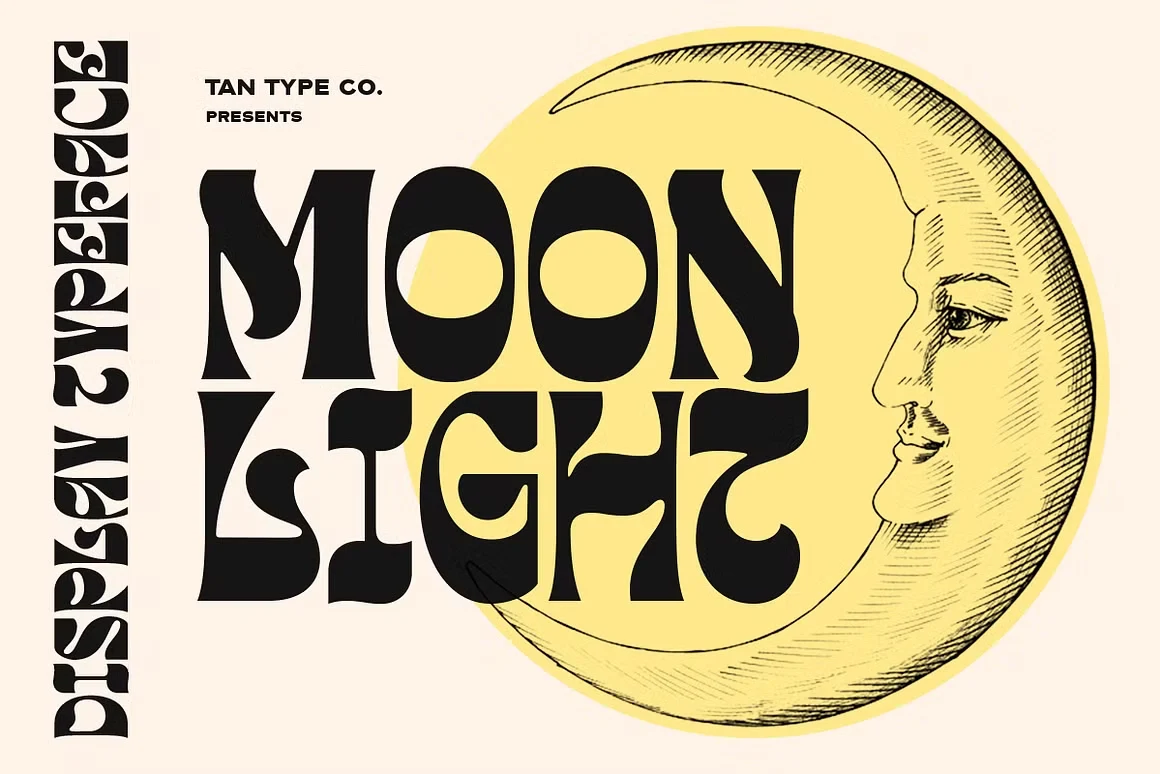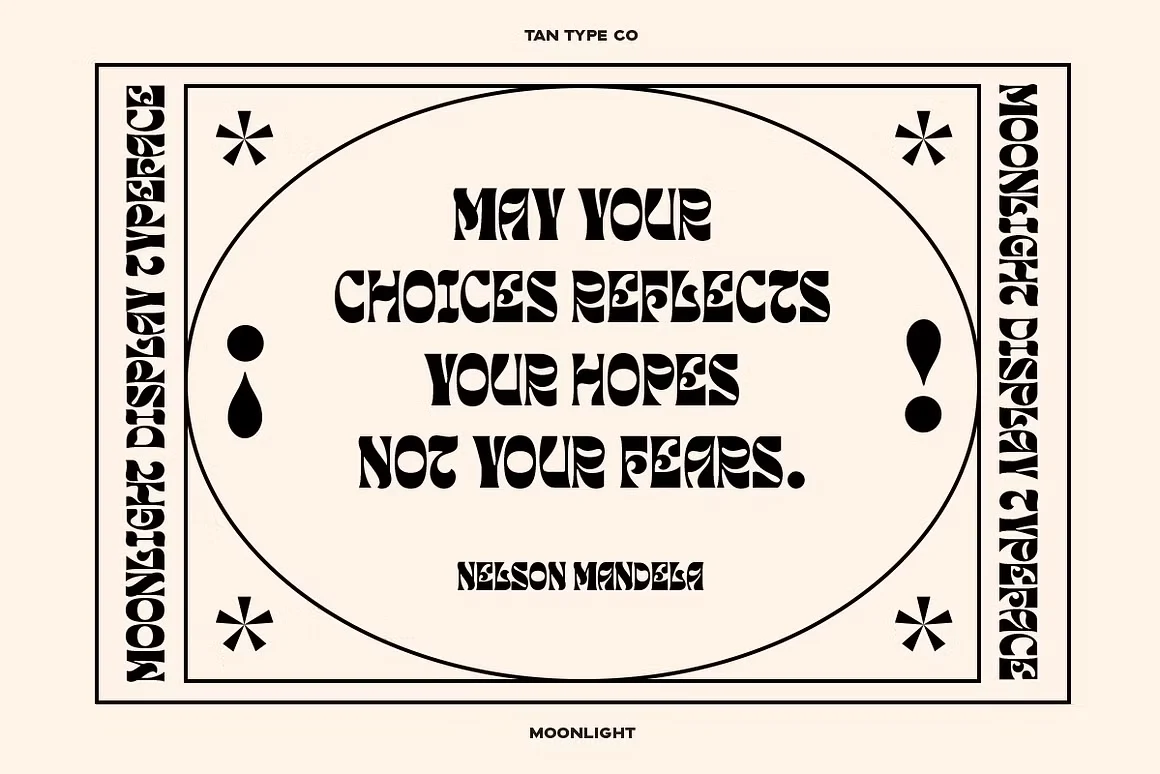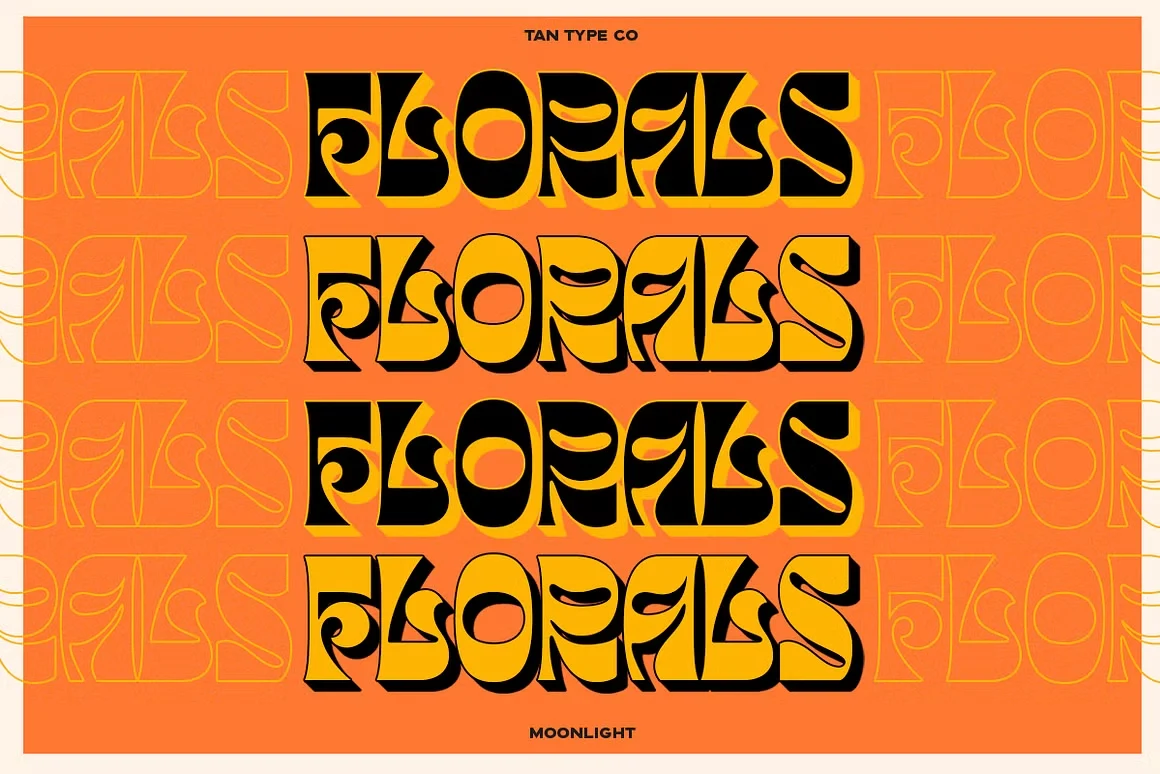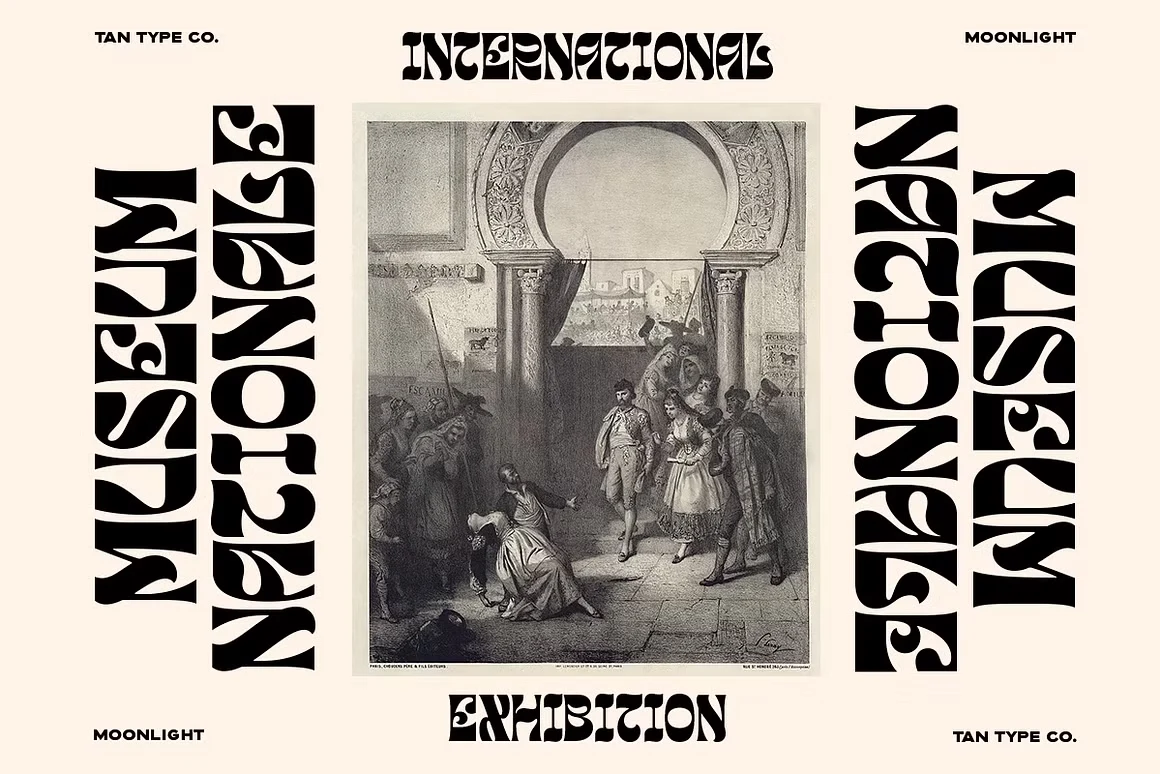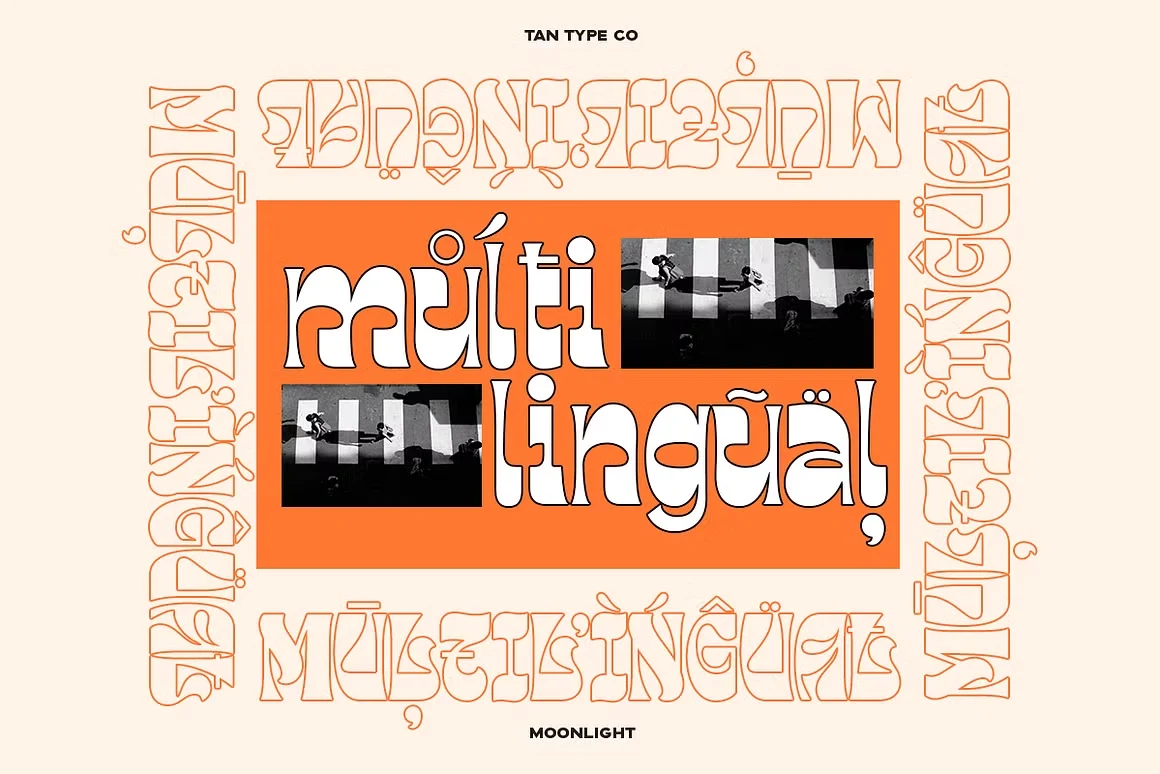
About Tan Moonlight Font
What Is the Tan Moonlight Font?
Tan Moonlight Font is a bold display typeface made for attention. It’s not subtle, and it doesn’t try to be. From the first look, it shouts, “we’re here to boogie.” The shapes are thick, curved, and full of motion. It’s a font that doesn’t sit still.
This typeface was designed by TanType, a creative team known for making loud, expressive fonts. Their style leans into retro, but with a fresh spin. Moonlight is a display typeface that brings back the 70s vibes with confidence.
If you want to build something that pops, this font fits. It’s not for everyday text. It’s for big words, short phrases, and design moments that need energy. Think posters, headlines, and logos. Tan Moonlight Font makes every letter feel like part of a rhythm. It’s a visual beat.
From branding to experimental work, it gives your project an edge that feels both fun and intentional. If your design says “retro cool,” this is your type.
Features of the Tan Moonlight Font
This is a display font, so it works best in large sizes. Each character has a thick, funky shape with smooth curves. You can see the groovy and funky rhythm in every glyph. It’s consistent but not stiff. Every letter feels alive.
The typeface includes standard uppercase and lowercase letters, numbers, and symbols. While it’s playful, it still holds structure, so it’s easy to align and space.
It pairs well with clean sans-serifs if you need body text underneath, but honestly, Moonlight Tan can carry a full visual all on its own.
In design, feel matters. And Moonlight is a display that delivers. It brings a retro light without losing modern polish. It’s just as at home in digital work as it is in print.
This font is perfect for anything that needs bold energy. Think posters, music flyers, social graphics, product packaging, and streetwear branding. It’s also ideal for logo work where personality is key.
I’ve used the Tan Moonlight Font in a retro-inspired product label and it turned a simple layout into something memorable. The shapes and flow helped the design stand out without relying on extra graphics.
On the web, it works great as a display font for headers or banners. The rhythm in the letterforms makes the text feel active. Whether you’re creating a landing page for a vintage store or a promo graphic for a music drop, this font fits right in.
This typeface says we’re here to boogie, and it means it. Use it where your brand wants to shout, not whisper.